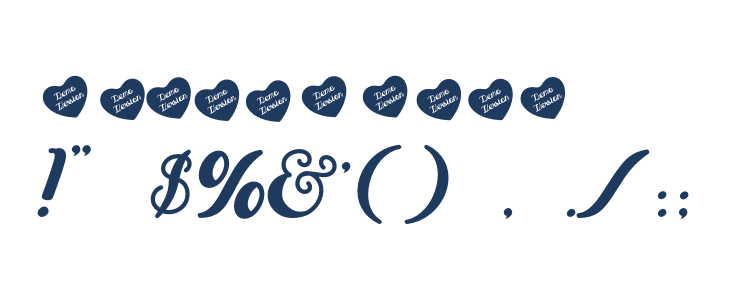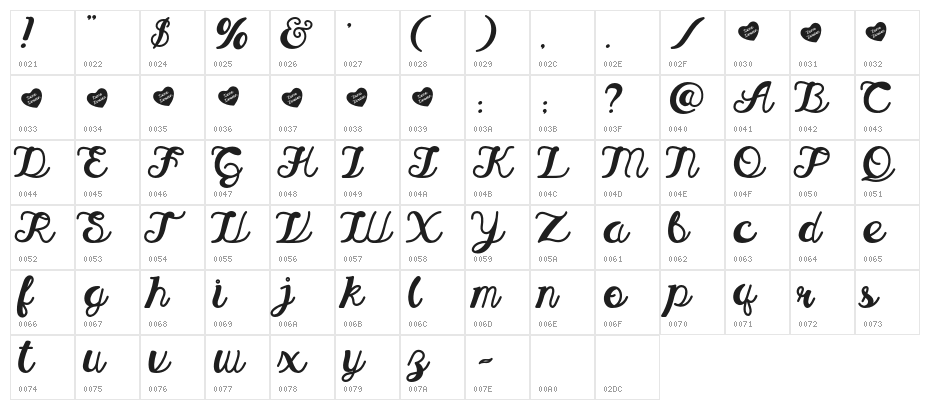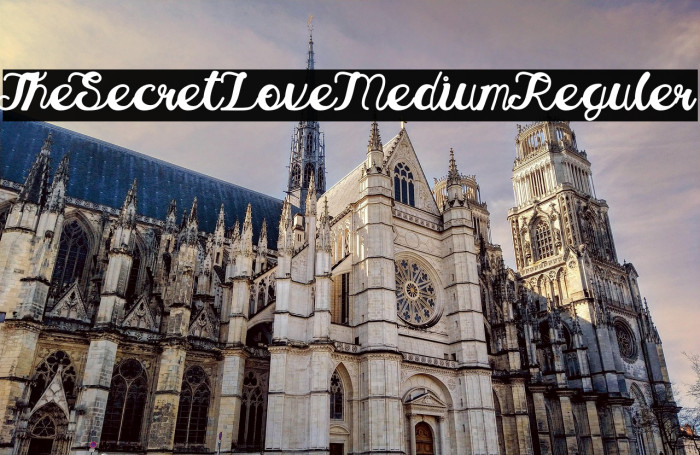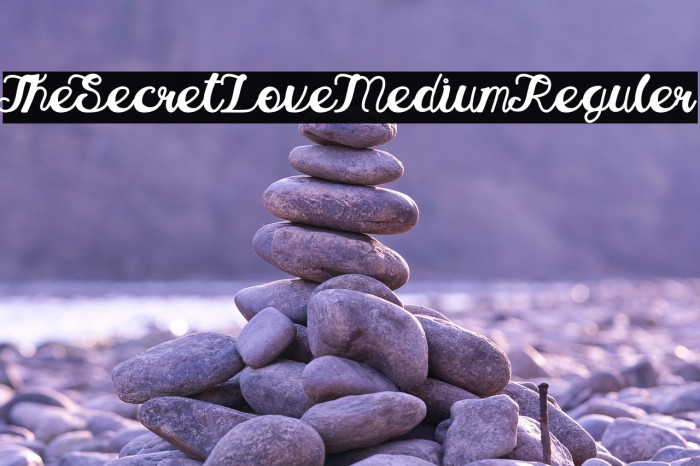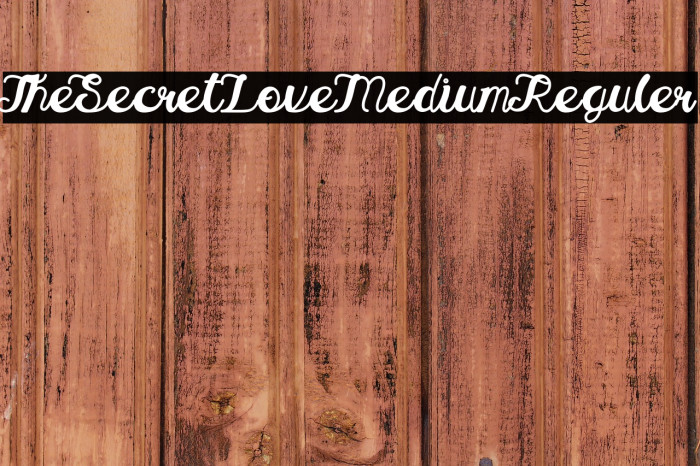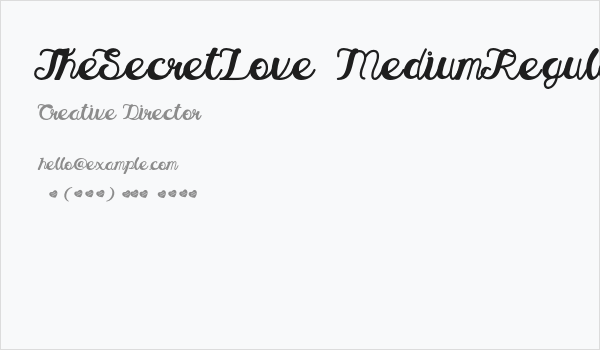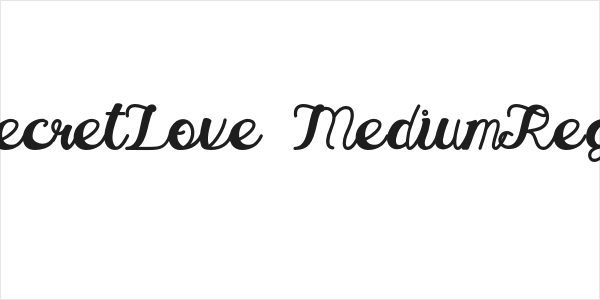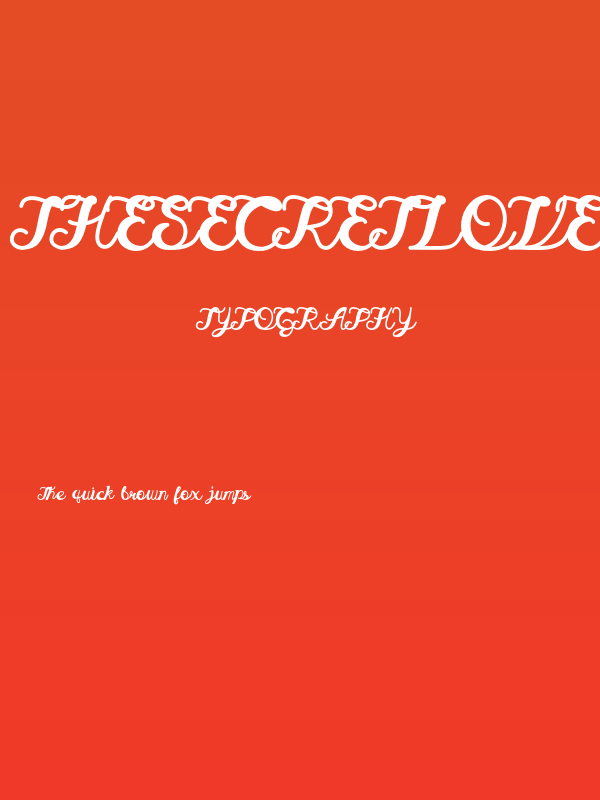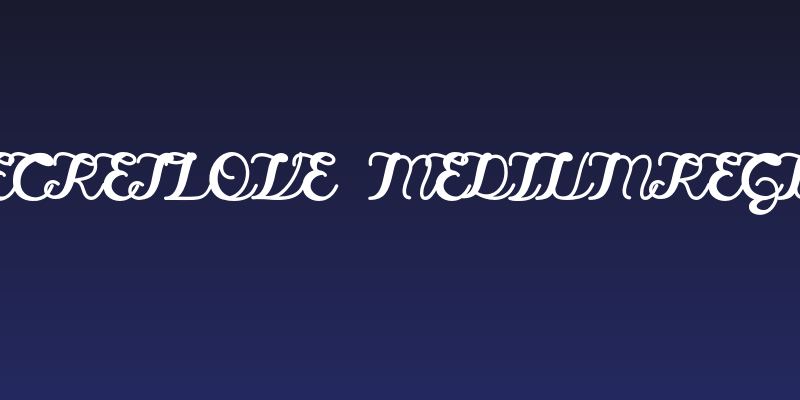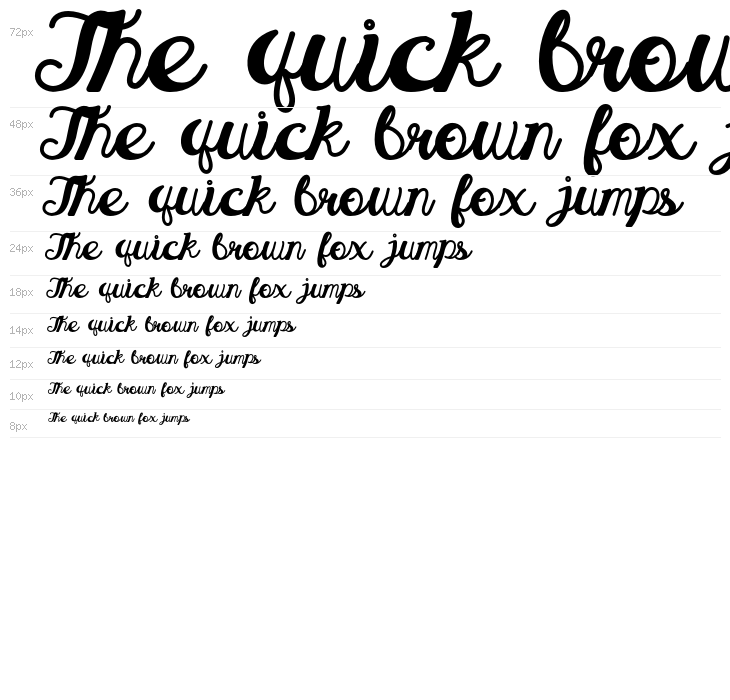
TheSecretLove-MediumReguler Font
TheSecretLove-MediumReguler Description
This font features a flowing, cursive style with elegant loops and swashes, giving it a romantic and sophisticated appearance. The uppercase letters are particularly ornate, with sweeping curves that connect seamlessly, while the lowercase letters maintain a consistent, flowing script. The numbers and special characters are designed to match the overall aesthetic, with a playful yet refined look. This font is ideal for projects that require a touch of elegance and charm, such as wedding invitations, greeting cards, or branding for luxury products.
| Overall Style | Romantic |
| Proposed Projects | Wedding invitations, greeting cards, luxury branding. |